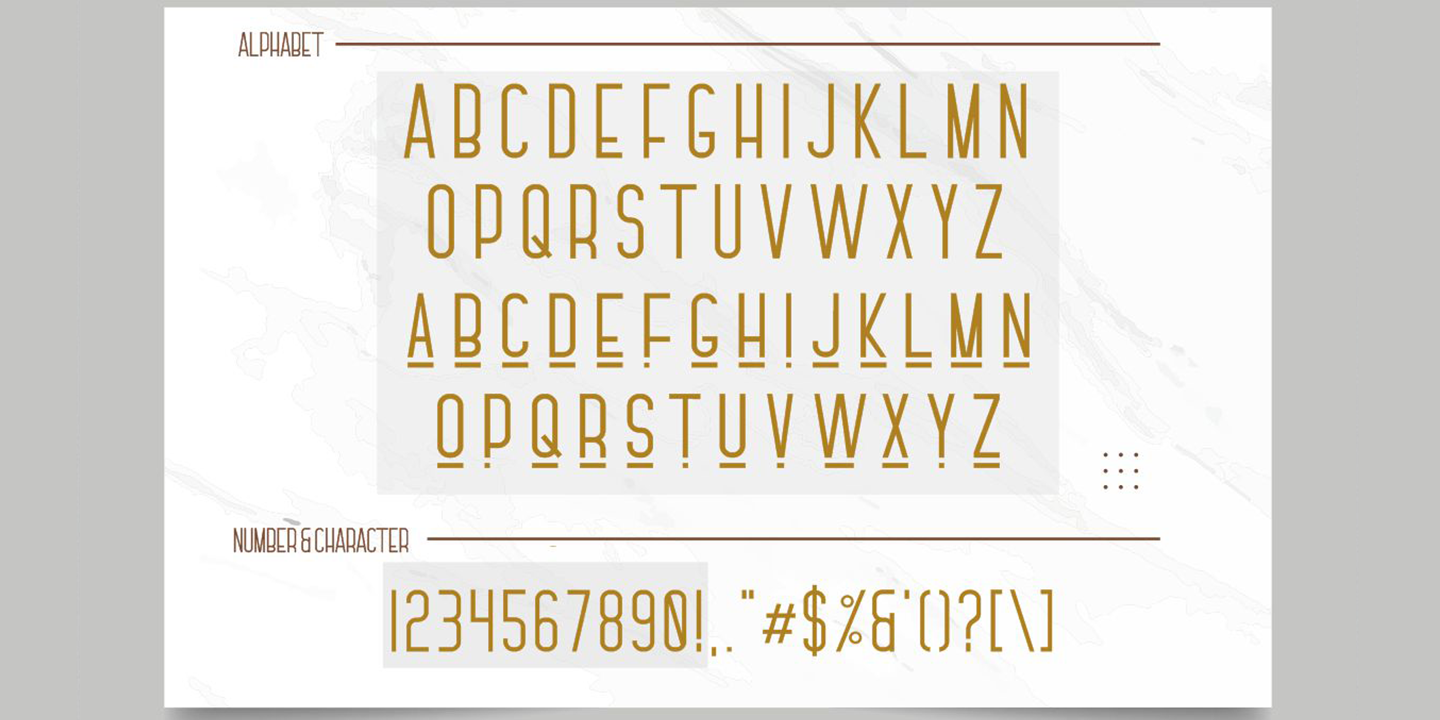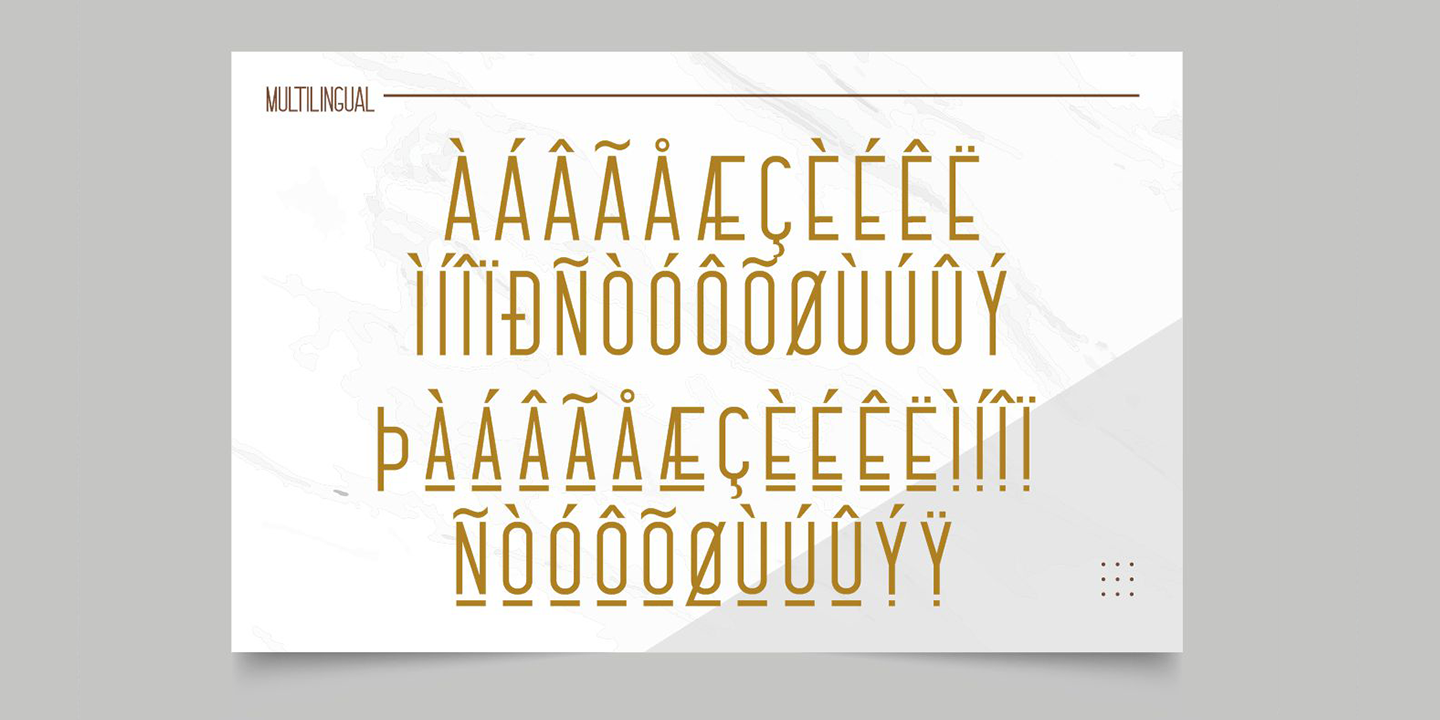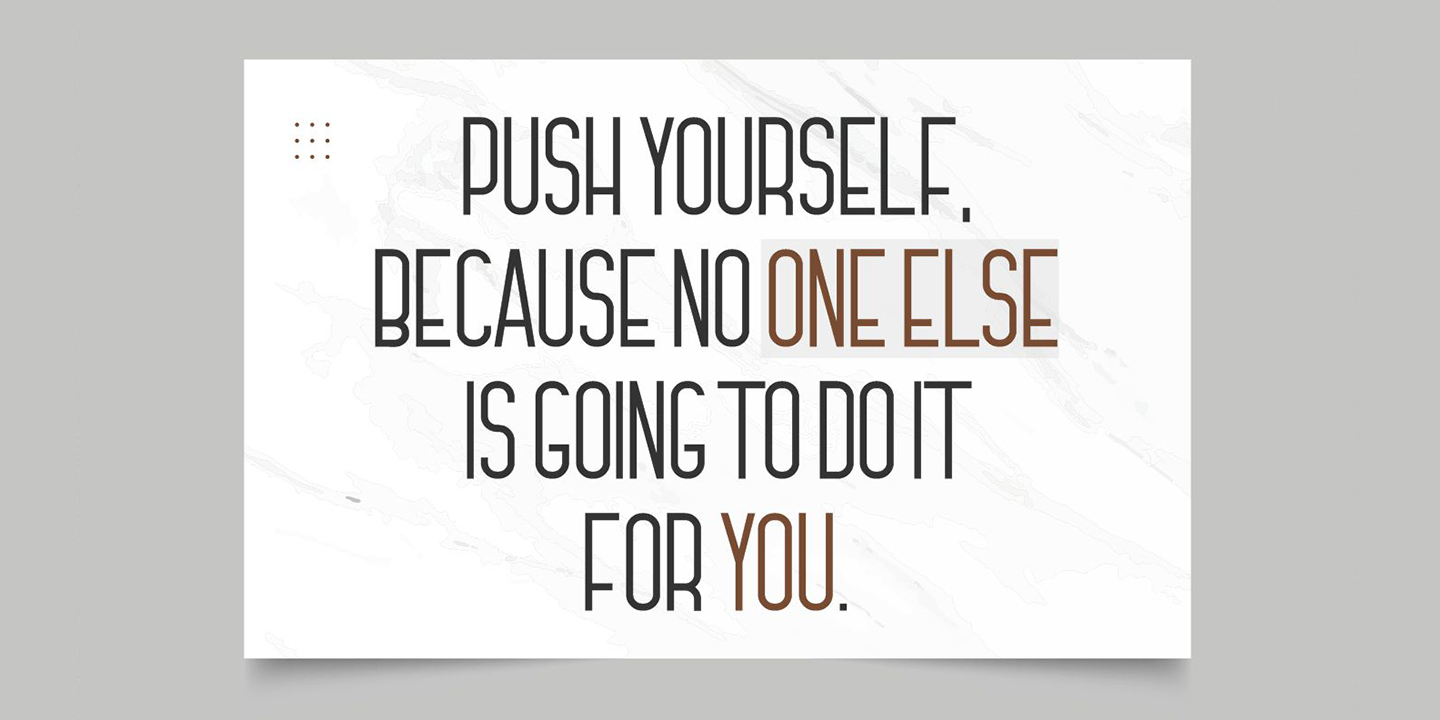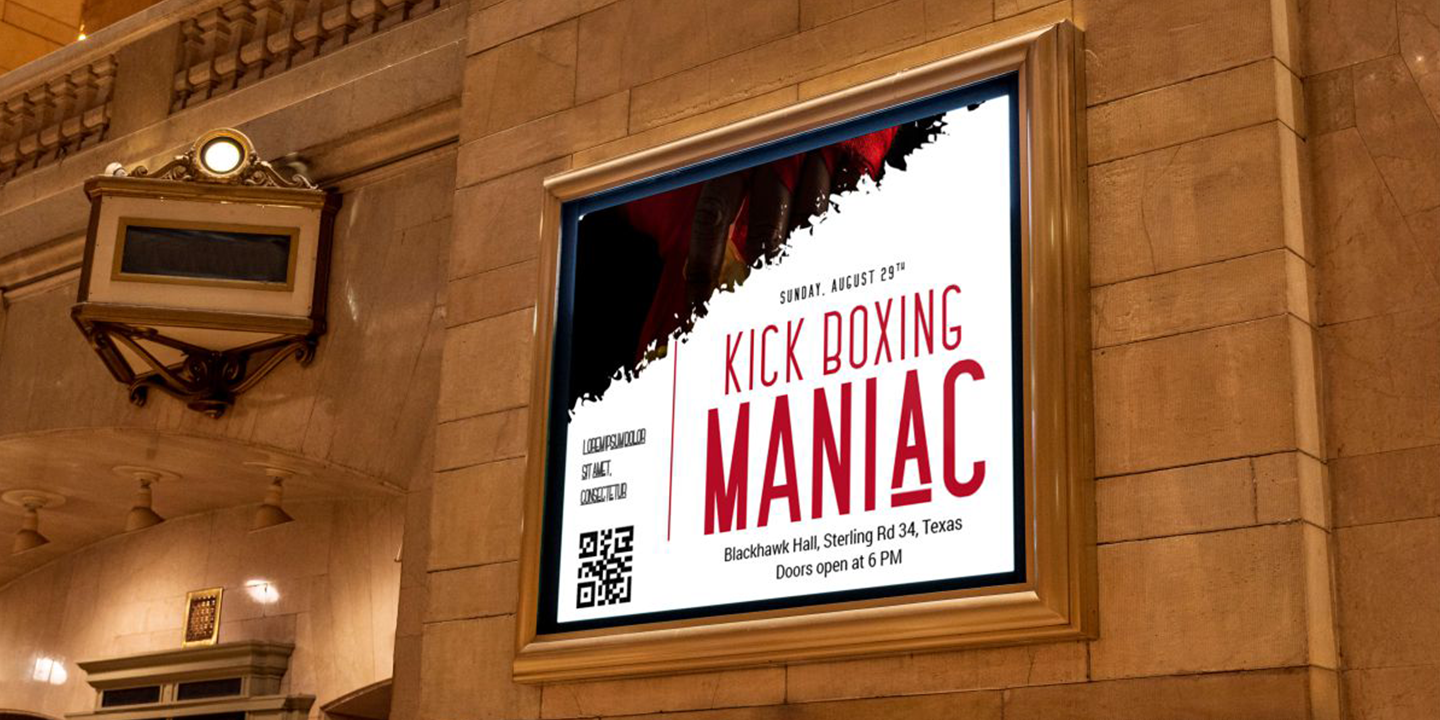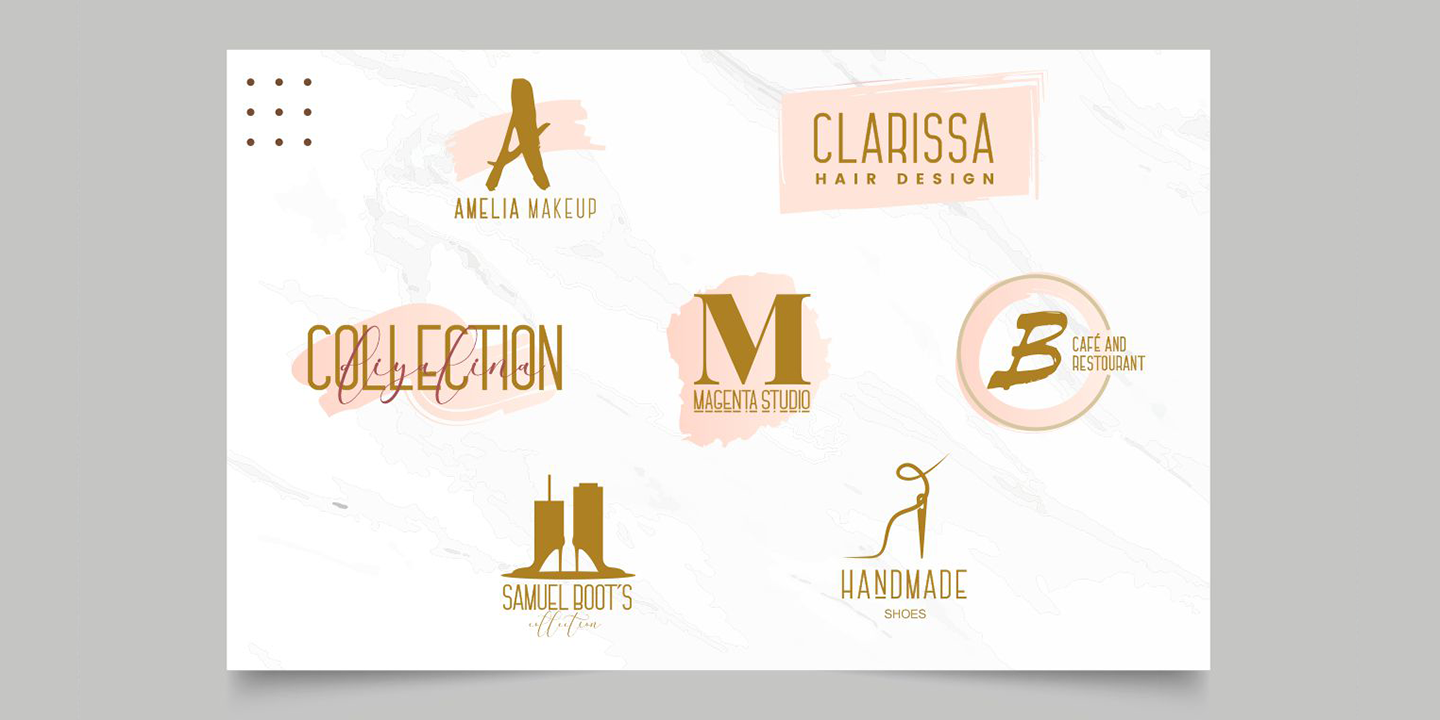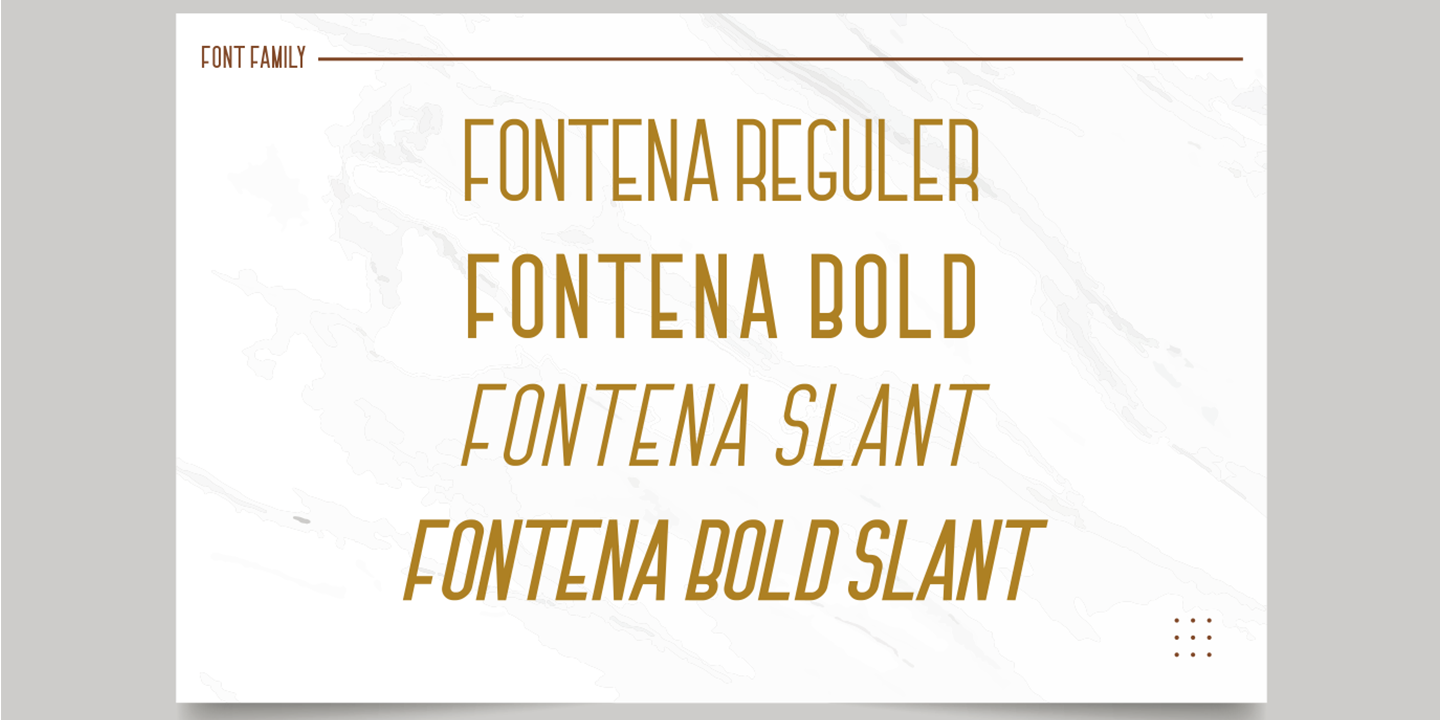
Introducing Fontena - A Font Family !
The Fontena - A Font Family will work perfectly for fashion, e-commerce brands, trend blogs, wedding boutiques or any business that wants to appear upscale and chic.
The Fontena - A Font Family also Suitable for Logo, greeting cards, quotes, posters, branding, name card, stationary, design title, blog header, art quote,
typography, art, modern envelope lettering or book design, happening style like handdrawn design or watercolor design theme, craft design, any DIY project, book title,
or any purpose to make your art/design project look pretty and trendy.
Features :
Numerals & Punctuations (OpenType Standard)
Accents/Multilingual characters (AÀÁÂÃÄÅCÇDÐEÈÉÊËIÌÍÎÏNÑOØÒÓÔÕÖUÙÜÚÛWYÝŸỲŸÆŒßÞ)